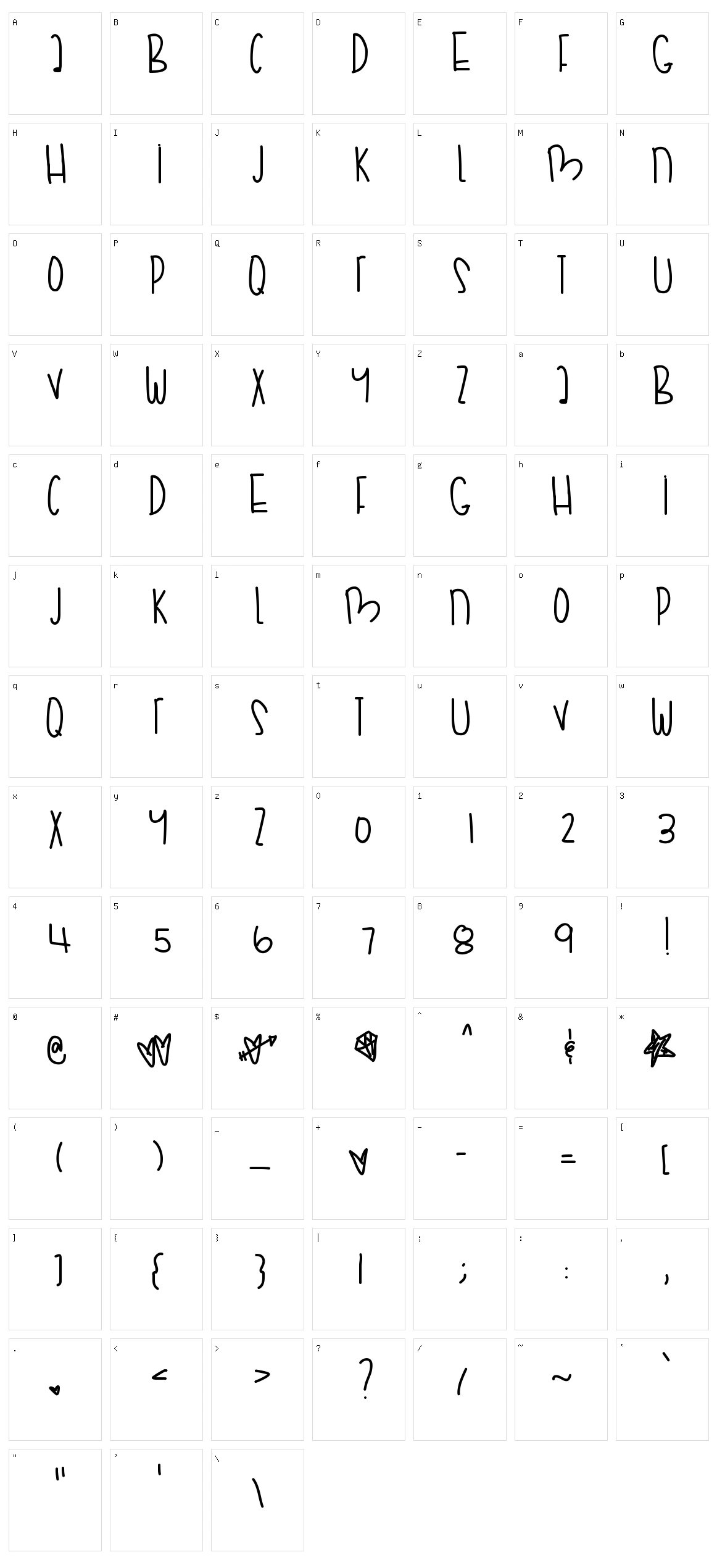
The free font Hipsters Night is carefully designed by Des Gomez, showcasing a thoughtful balance of creativity and usability and falls under the Script font style. When you download the ZIP file, it contains only 10.77 KB of font files, making it lightweight and quick to download. Please review the license details below to understand permitted usage and distribution rights. If license information is not available, we recommend using this font for personal projects only or contacting the author directly for commercial usage permissions.